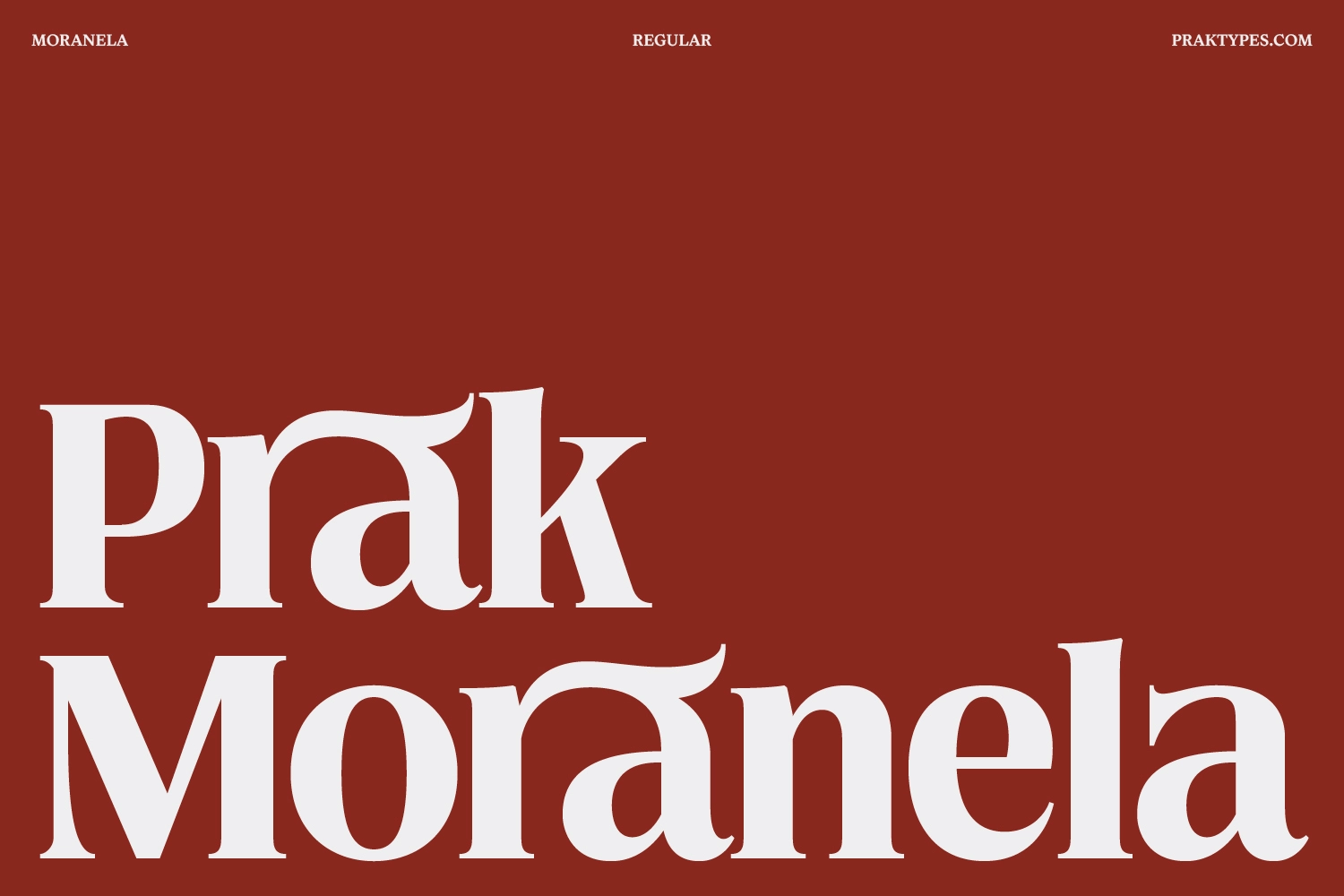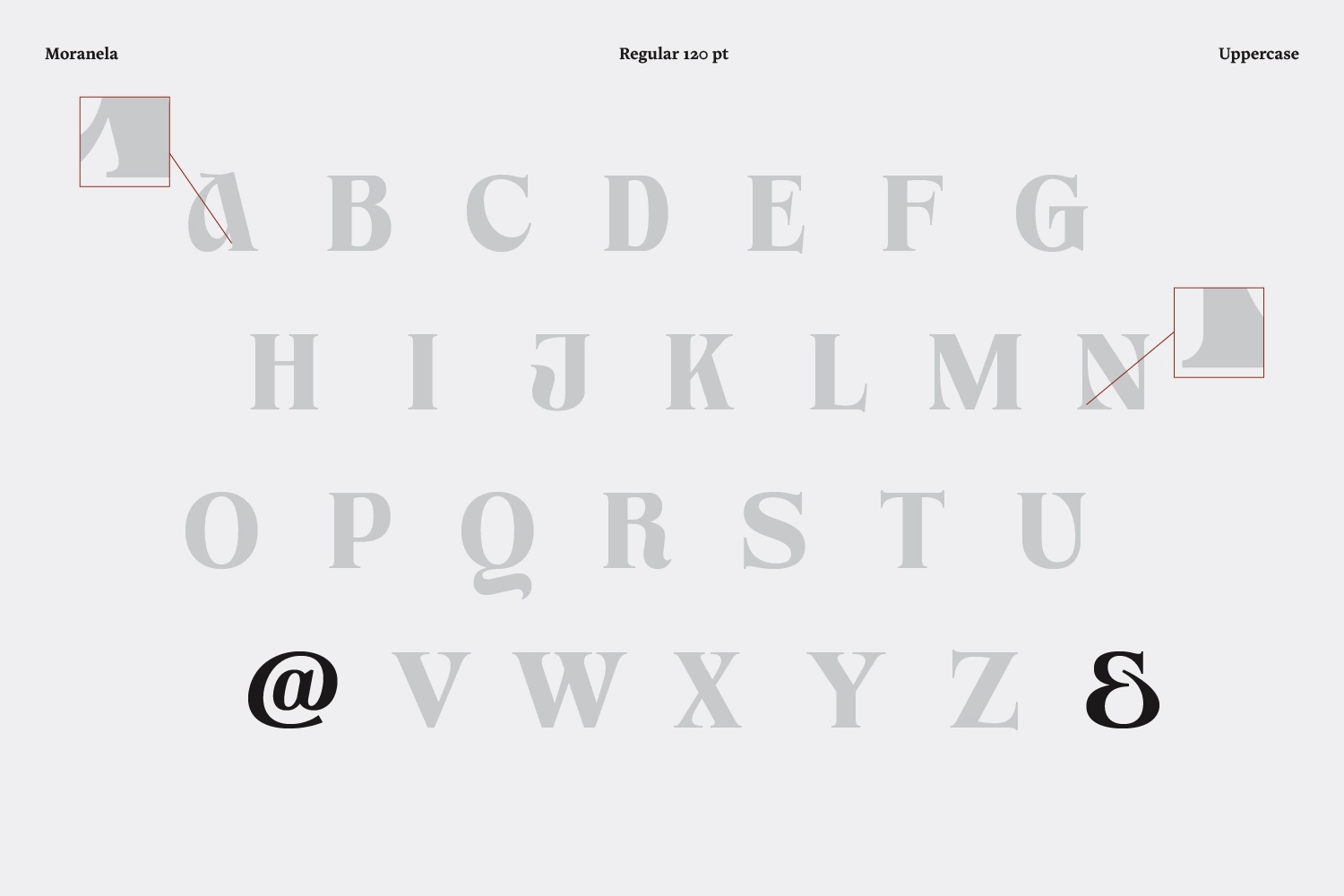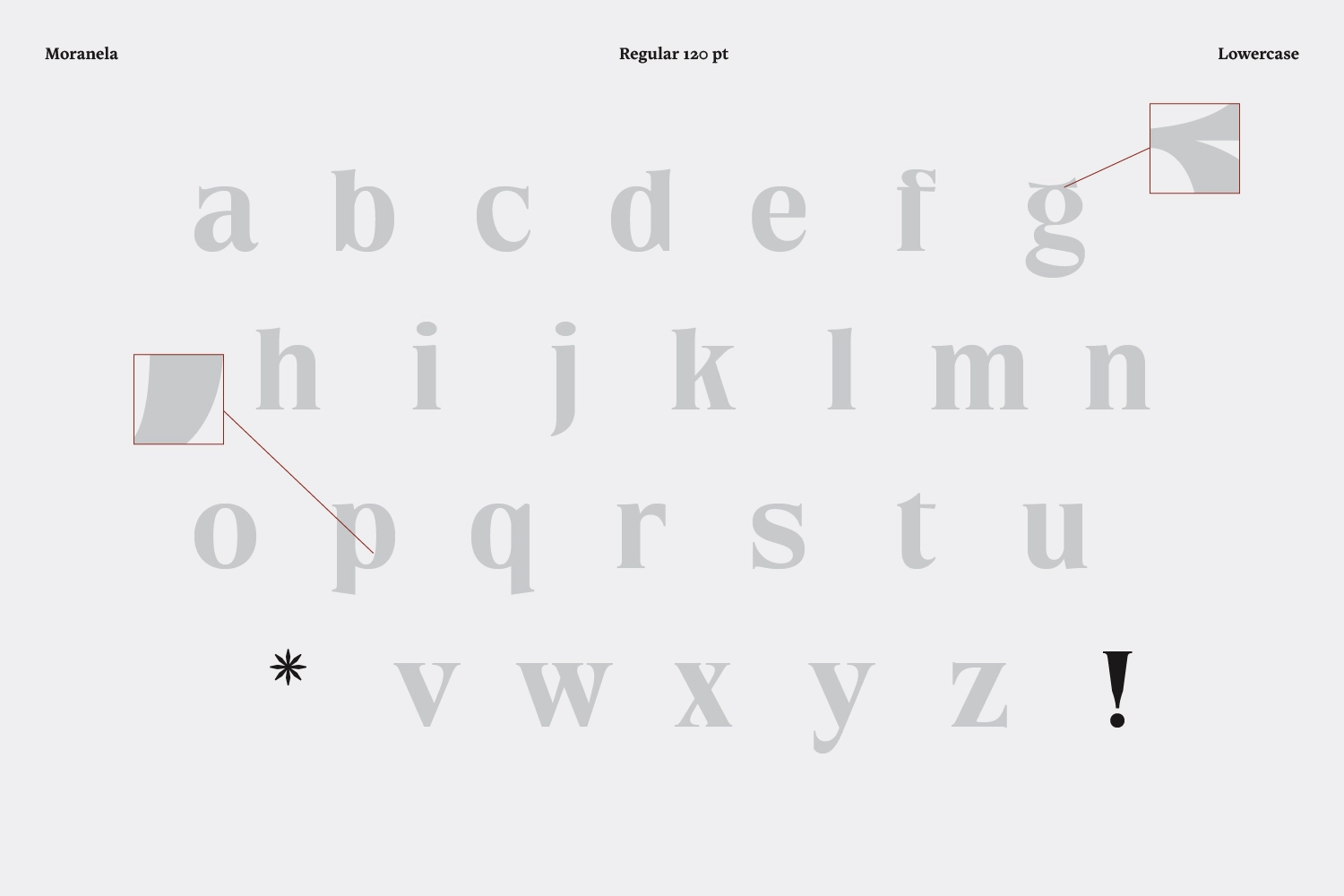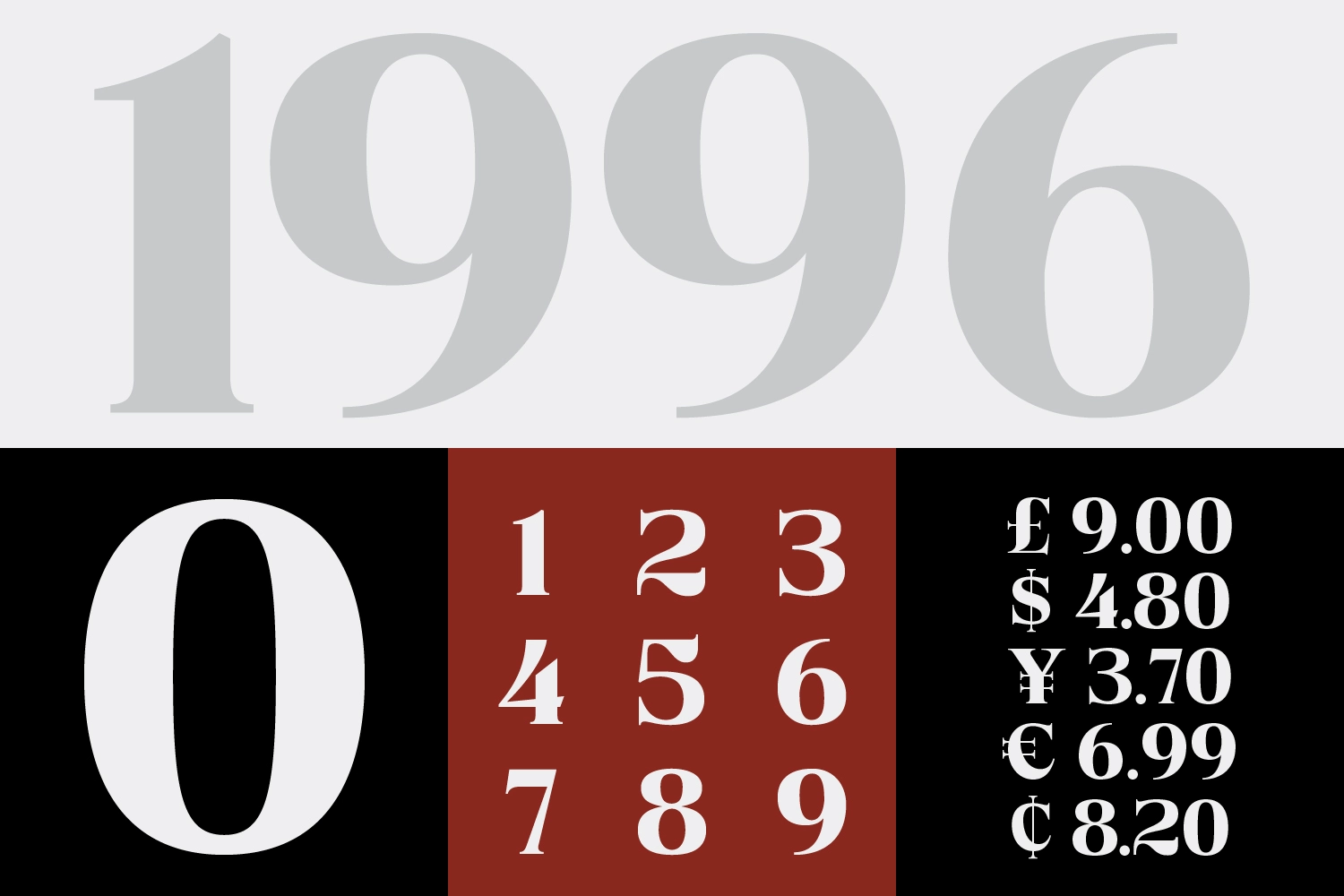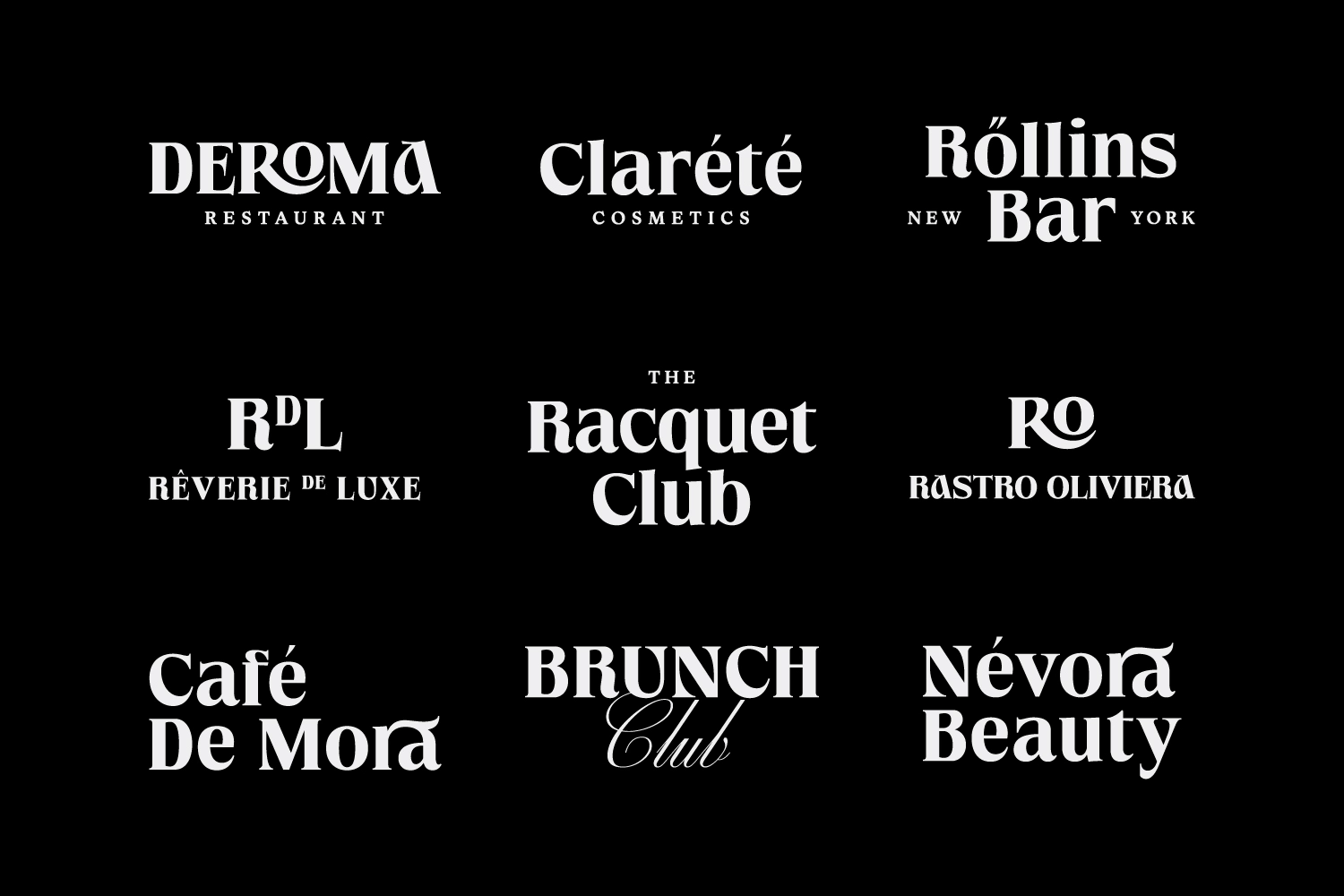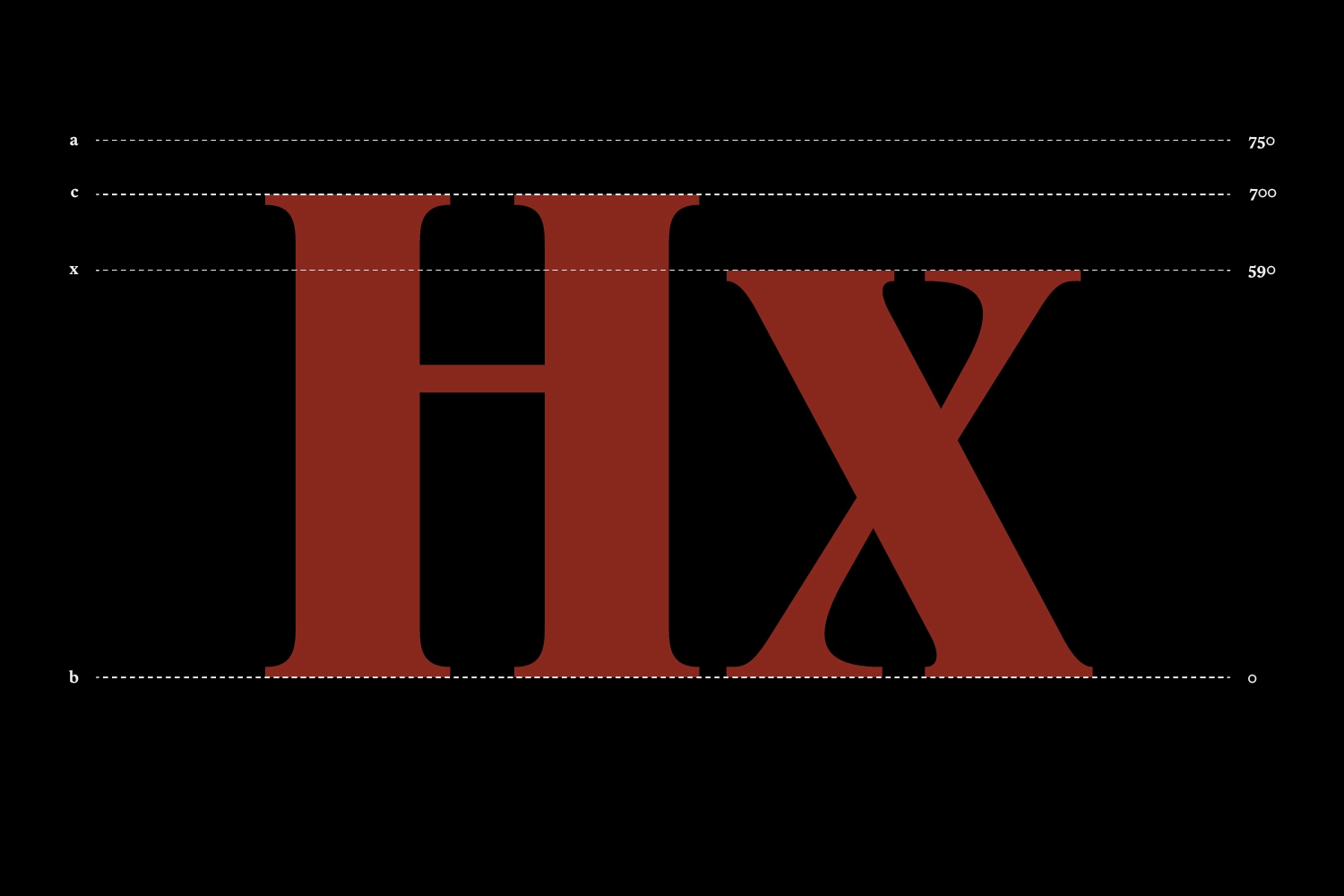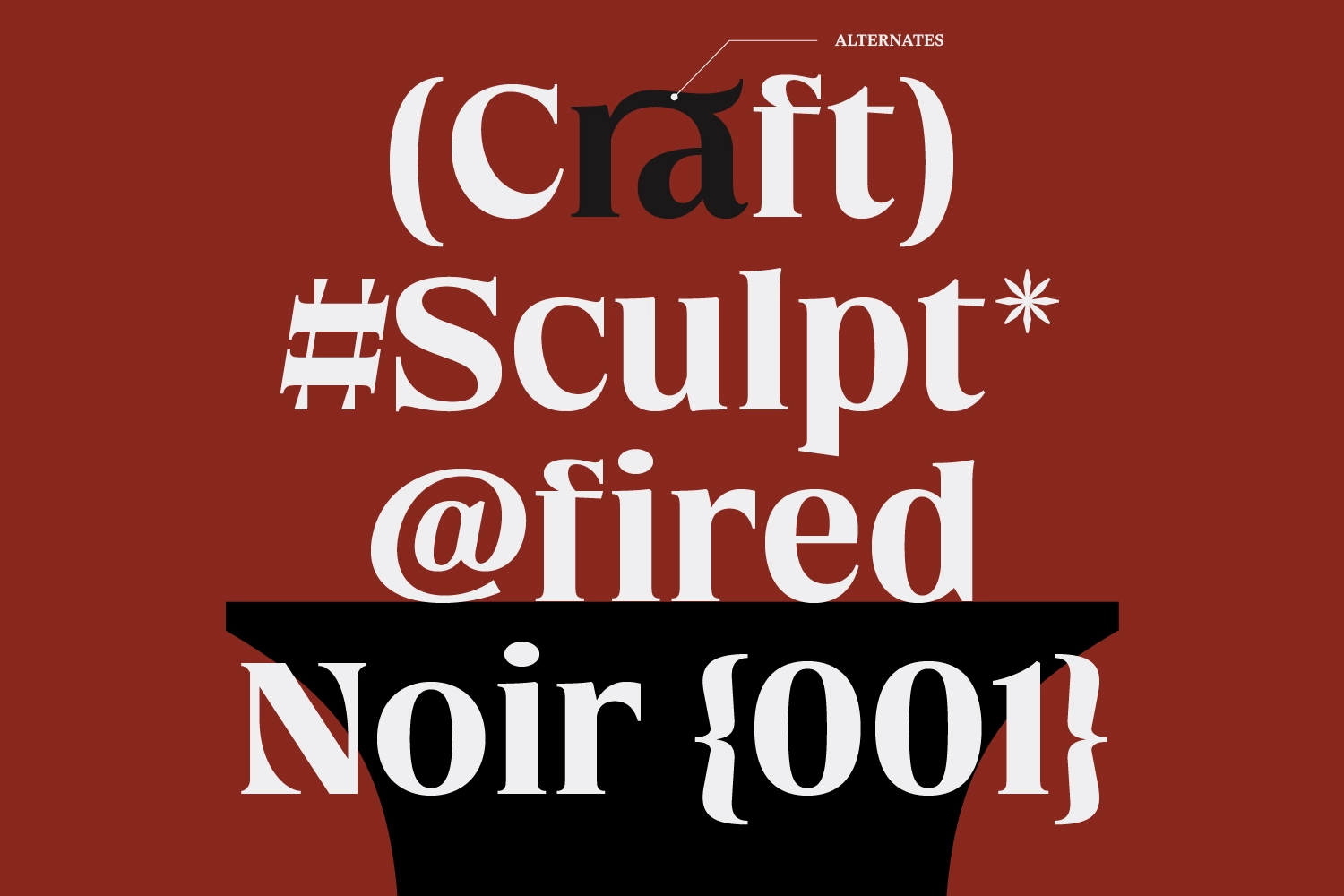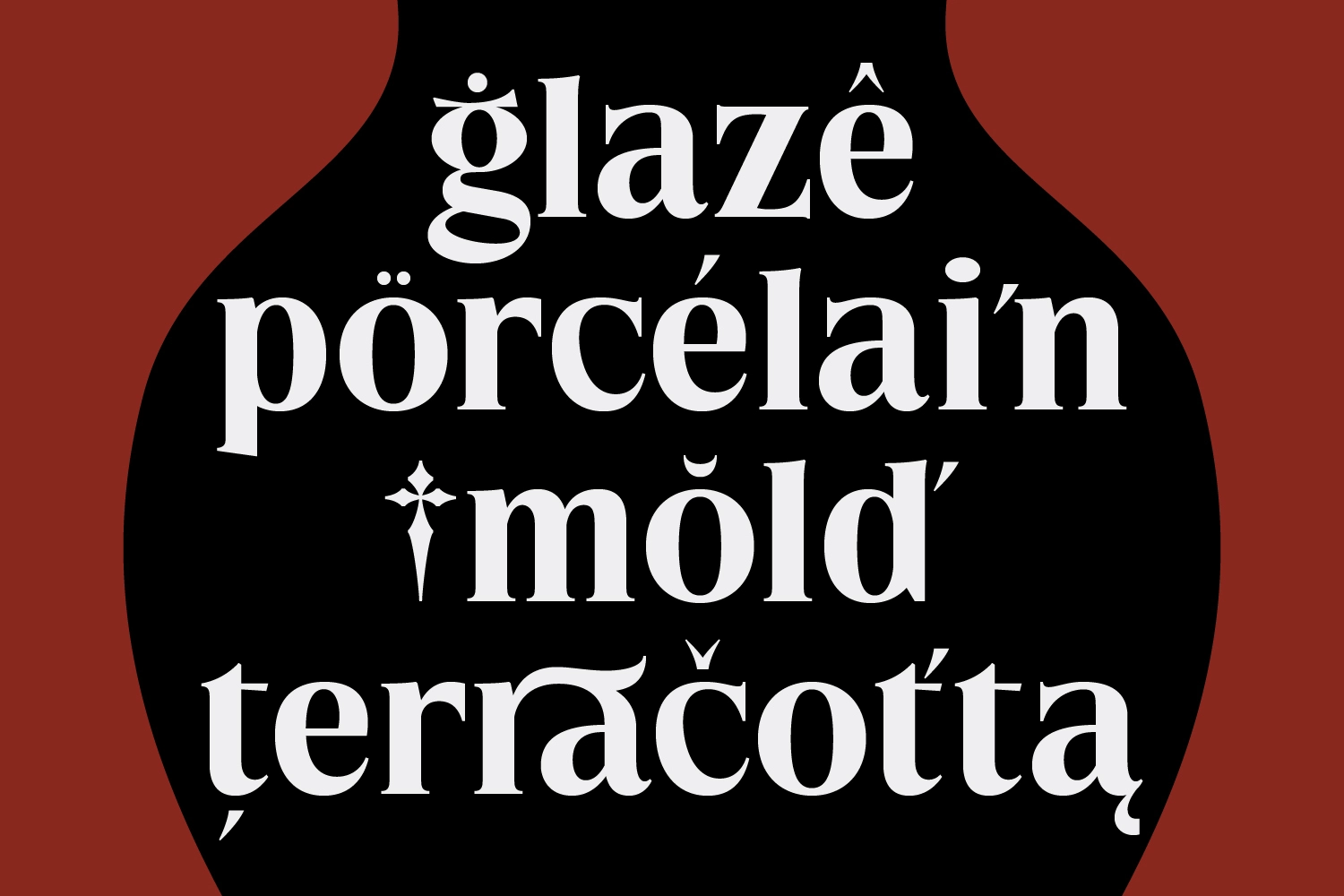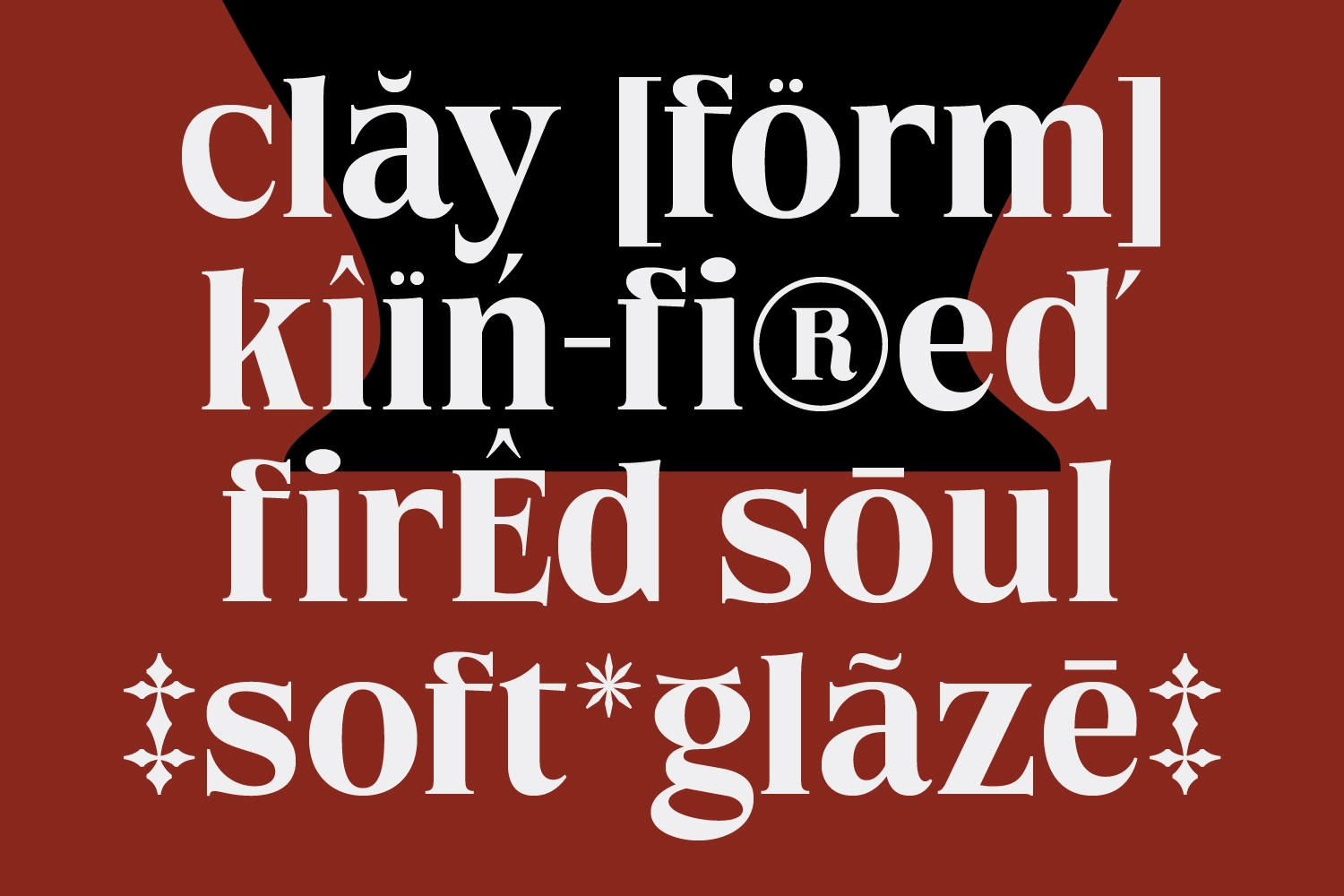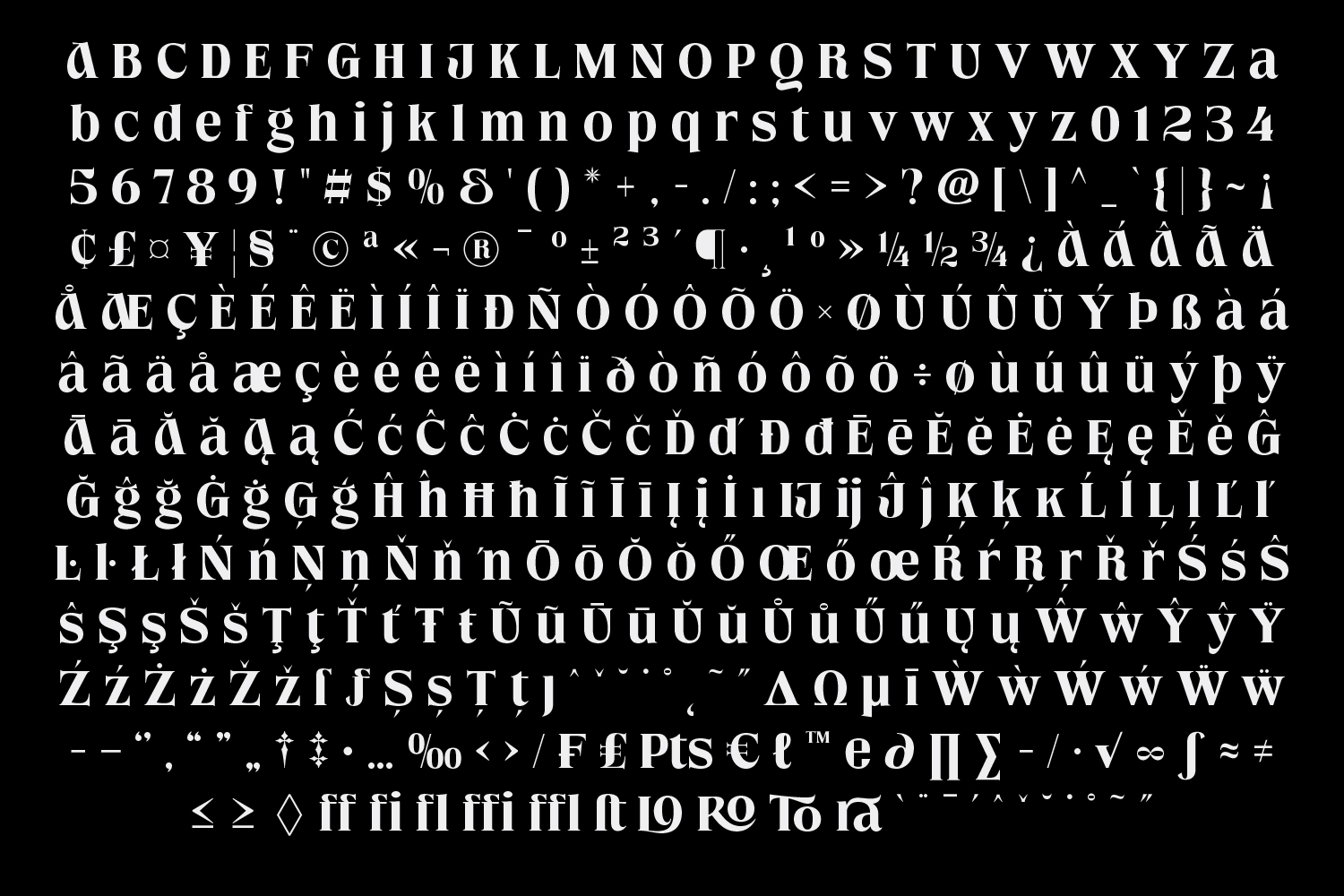
PRAK Moranela - Luxury Serif Font
PRAK Moranela
PRAK Moranela – Luxury Serif is an elegant high-contrast display typeface crafted for refined branding, editorial design, and premium visual identities, blending classic Roman influence with expressive Art Nouveau curves. Its sculptural letterforms and distinctive terminals create a striking balance between tradition and modern sophistication.
Designed to stand out in high-end applications, PRAK Moranela delivers a sense of quiet luxury and confidence through its sharp contrast, flowing rhythm, and carefully crafted details. From fashion editorials and boutique logos to packaging and cinematic titles, this typeface adds a timeless and artistic voice to every composition.
- Uppercase letters
- Lowercase letters
- Numbers & punctuation
- Symbols & currency support
- Stylistic ligatures